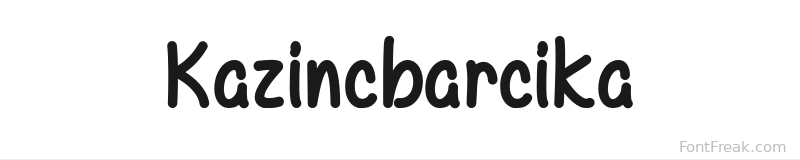
Kazincbarcika
Kazincbarcika is a unique display font designed by Misti Hammers, characterized by its playful and rounded letterforms. This typeface falls under the category of decorative fonts, making it an eye-catching choice for various design projects. The strokes of the Kazincbarcika font are moderately thick, providing a bold presence while maintaining a friendly aesthetic. Its rounded edges and consistent spacing lend a sense of warmth and approachability, making it versatile for different applications.
The Kazincbarcika font is particularly well-suited for creative projects that require a touch of whimsy. It excels in use cases such as children's book covers, where its playful design can engage young readers. Additionally, it makes a great choice for branding small businesses, especially those in the food and beverage industry, such as cafes or bakeries, where an inviting and cheerful typeface can enhance the overall atmosphere. Wedding invitations also benefit from the font's charming style, adding a personal touch to special occasions. Furthermore, it can be effectively used in promotional materials for events or festivals, drawing attention with its distinctive look.
What makes the Kazincbarcika font stand out is its combination of boldness and playfulness, creating a memorable visual impact. Its unique characteristics make it a versatile choice for a variety of applications, ensuring that your designs will capture attention and resonate with your audience. Don't miss the opportunity to explore the Kazincbarcika font free download for your next creative endeavor.